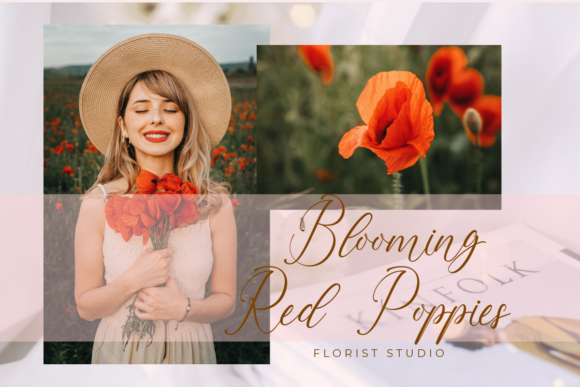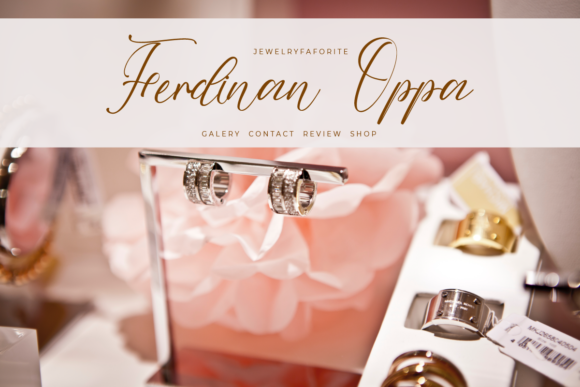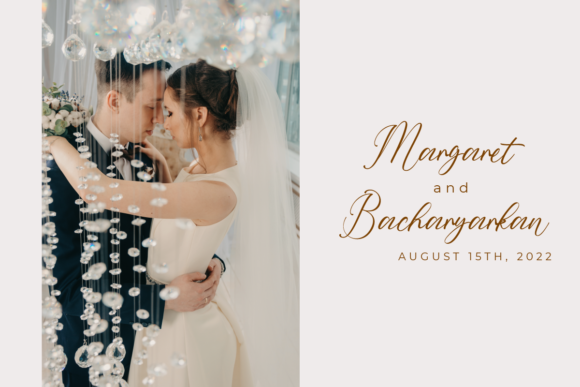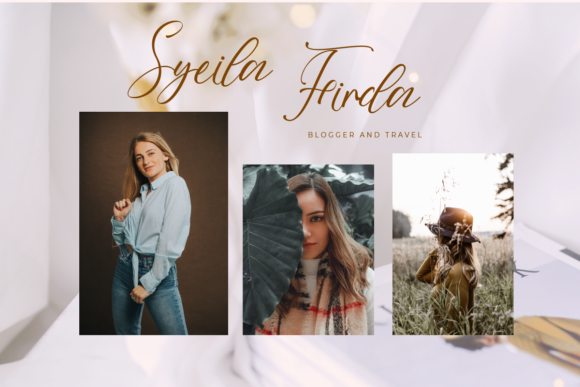
Casandra Font: A Delicate and Beautiful Script Font
Are you a designer or crafter looking for a font that can add a touch of elegance and sophistication to your designs? Look no further than the Casandra font. This delicate and beautiful script font is sure to capture your heart with its distinct and well-balanced letters, making it a masterpiece in the world of typography.
What Makes Casandra Font So Special?
Casandra font is a true gem in the world of script fonts. Its incredibly versatile style makes it perfect for a wide range of design projects, from wedding invitations and party cards to branding and advertising materials. The font’s delicate and beautiful letters are designed to be eye-catching and elegant, making it easy to create spectacular designs that will leave a lasting impression.
Key Features of Casandra Font
- Delicate and Beautiful Letters: Each letter in the Casandra font is carefully crafted to be delicate and beautiful, making it perfect for designs that require a touch of elegance.
- Distinct and Well-Balanced: The font’s distinct and well-balanced letters ensure that your designs are easy to read and visually appealing.
- Incredibly Versatile: Casandra font can be used for a wide range of design projects, from formal events to branding and advertising materials.
Uses for Casandra Font
Casandra font is perfect for a wide range of design projects, including:
- Wedding Invitations: Add a touch of elegance and sophistication to your wedding invitations with the Casandra font.
- Party Cards: Create beautiful and eye-catching party cards with the Casandra font.
- Branding and Advertising: Use the Casandra font to create stunning branding and advertising materials that will leave a lasting impression.
- Social Media Graphics: Add a touch of elegance to your social media graphics with the Casandra font.
Tips for Using Casandra Font
Here are some tips for using the Casandra font to create spectacular designs:
- Pair it with Other Fonts: Pair the Casandra font with other fonts to create a unique and eye-catching design.
- Use it for Headings: Use the Casandra font for headings and titles to add a touch of elegance and sophistication.
- Experiment with Colors: Experiment with different colors to find the perfect combination that complements the Casandra font.
In conclusion, the Casandra font is a delicate and beautiful script font that is sure to capture your heart. Its distinct and well-balanced letters make it a masterpiece in the world of typography. With its incredibly versatile style, it’s perfect for a wide range of design projects. Whether you’re a designer or crafter, the Casandra font is a must-have in your font collection.